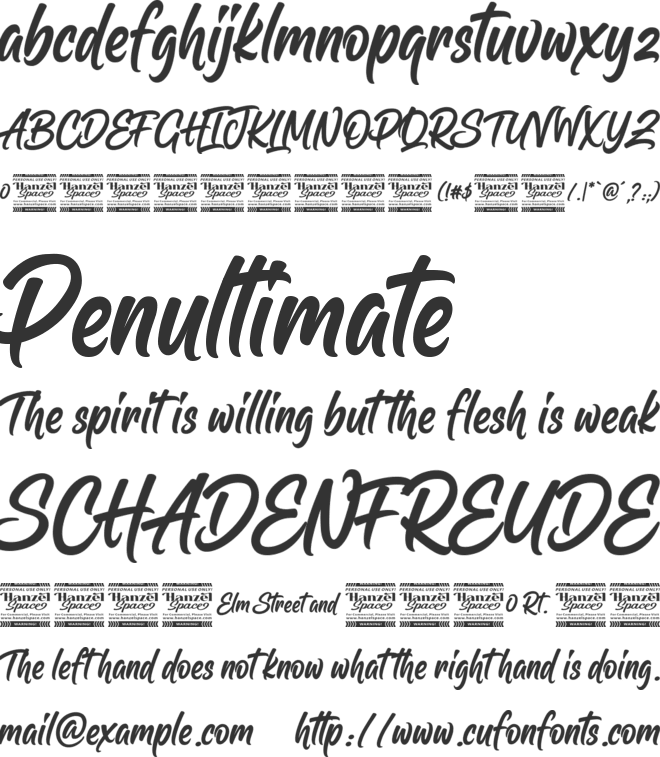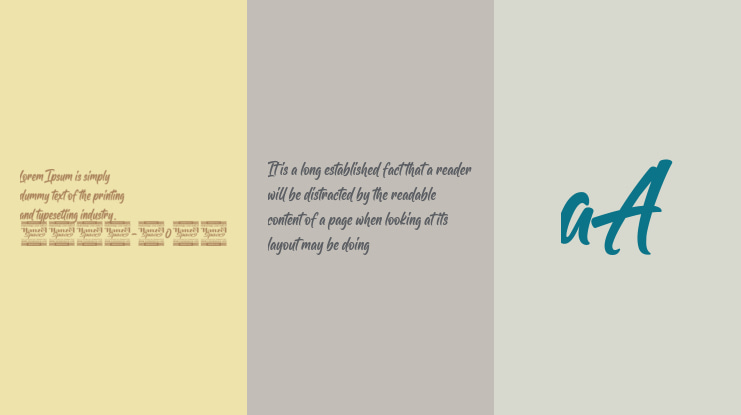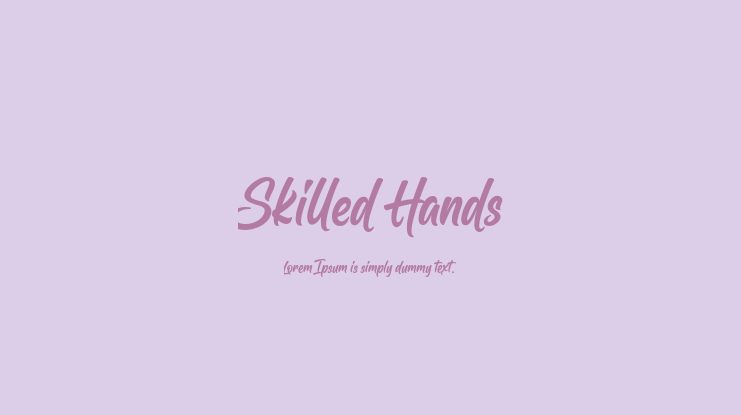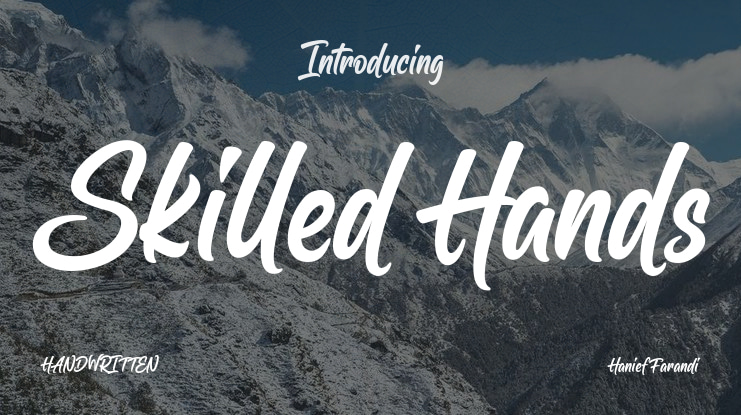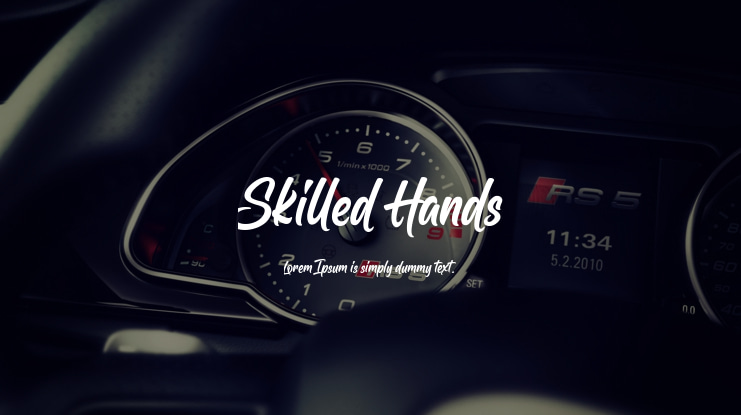
Hanief Farandi
Skilled Hands - Script Font
Introducing Skilled Hands! This characterful font, with its natural script, is ideal for designing handwritten quotes, websites, branding and logo projects, merchandise, social media posts, and product packaging.
- Full set of standard alphabet and punctuation
- Multilingual characters (ÁÂÄÀÅÃÆÇÐÉÊËÈÍÎÏÌÑÓÔÖÒØÕÚÛÜÙẂŴẄẀÝŶŸỲ áâäàåãæçðéêëèíîïìñóôöòøõœúûüùẃŵẅẁýŷÿỳ€£¥)